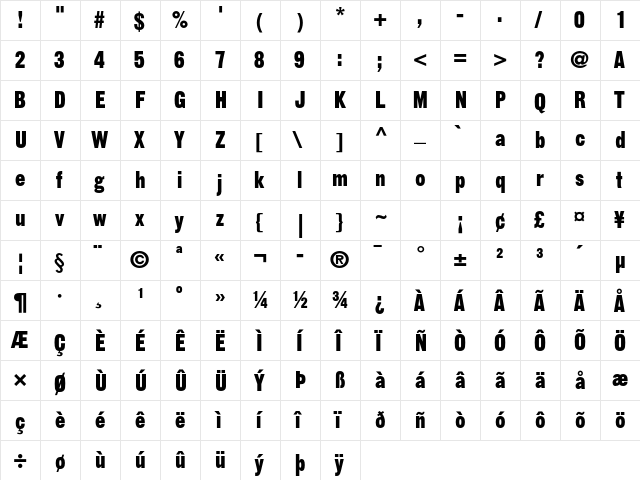
Gothic 13 Std Regular
Design Context for Gothic 13 Std Typeface
Gothic 13 Std takes a clean, functional approach — its unadorned letterforms prioritise legibility and work reliably across screen and print environments.
Font Pairing: Works well alongside a characterful serif or display font that can carry the expressive load while Gothic 13 Std handles the functional copy.
Pro Tip: Pair Gothic 13 Std with a display or serif font for headlines — its neutral character makes it an excellent supporting player in complex typographic systems.